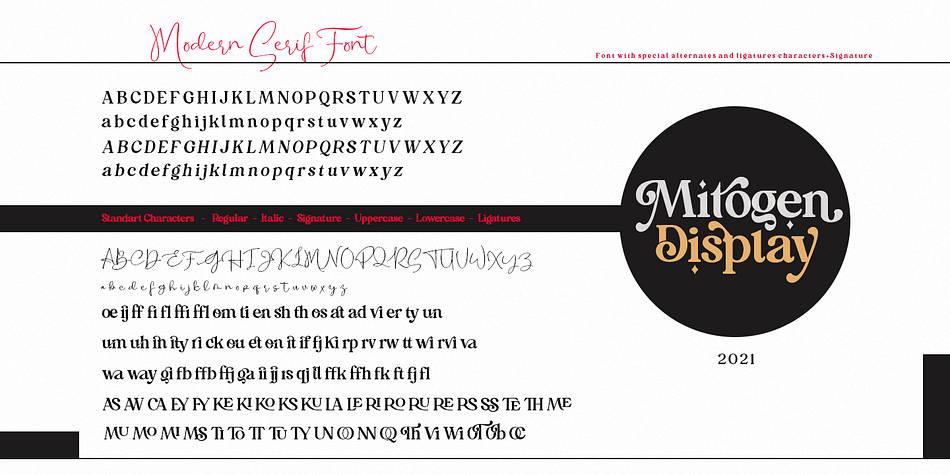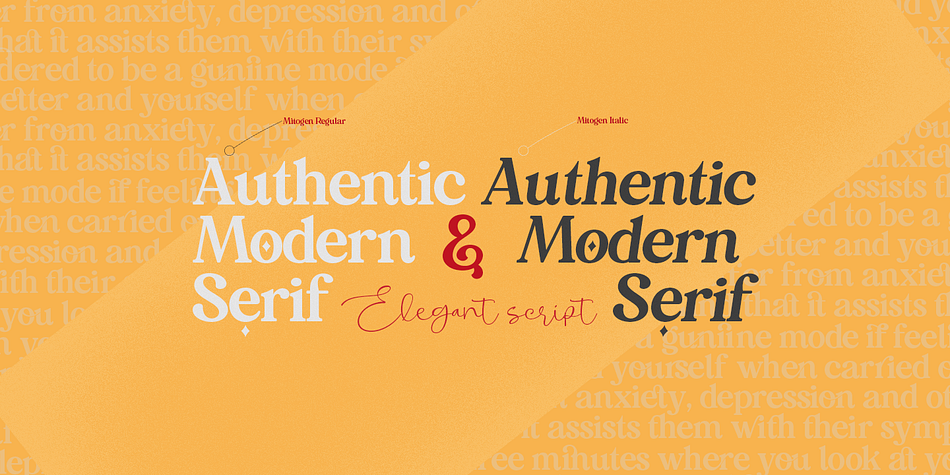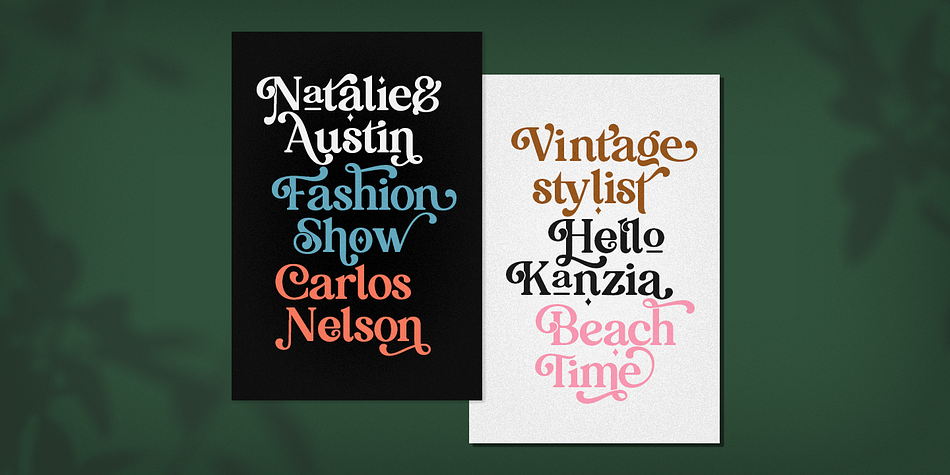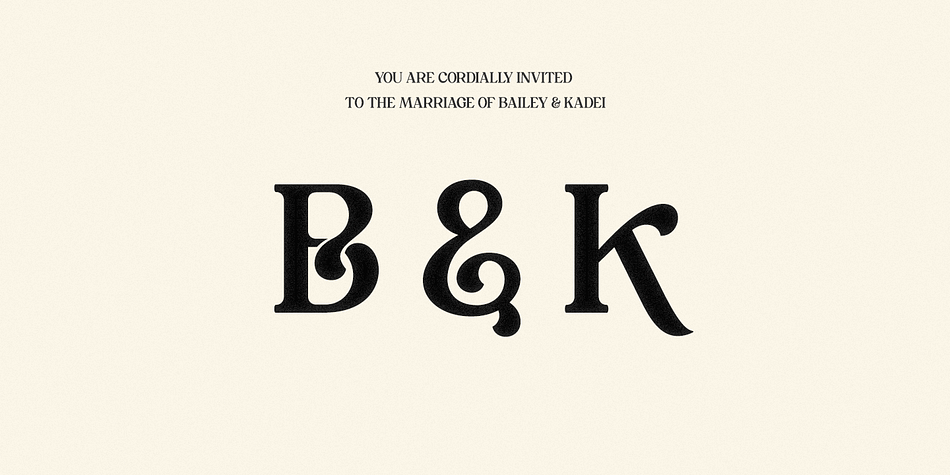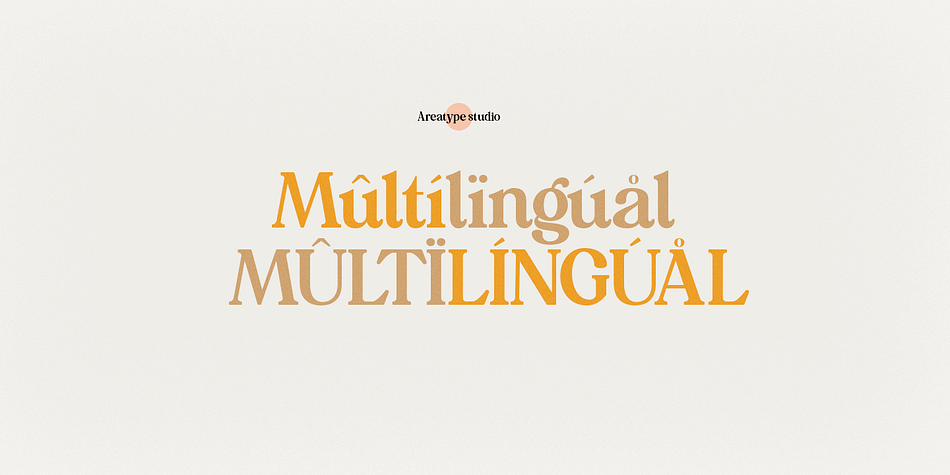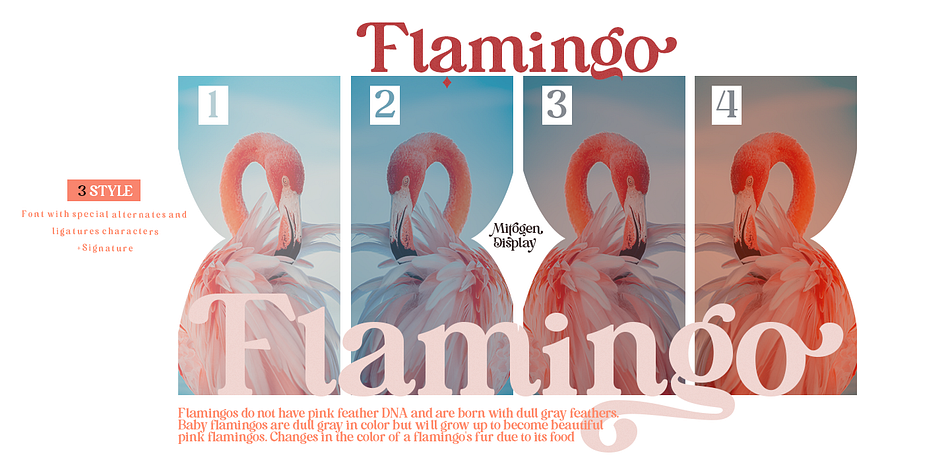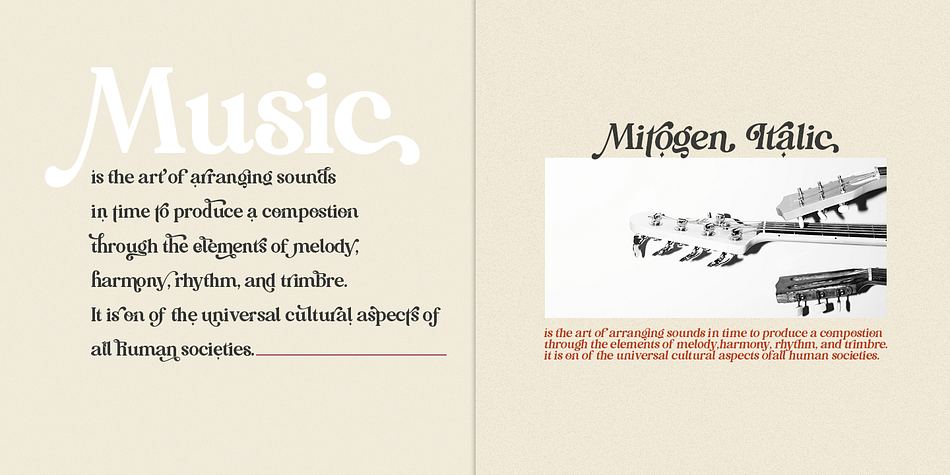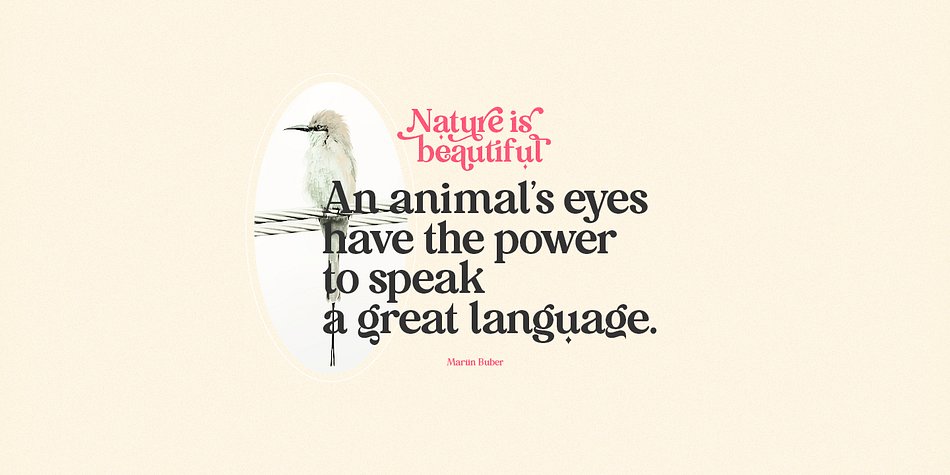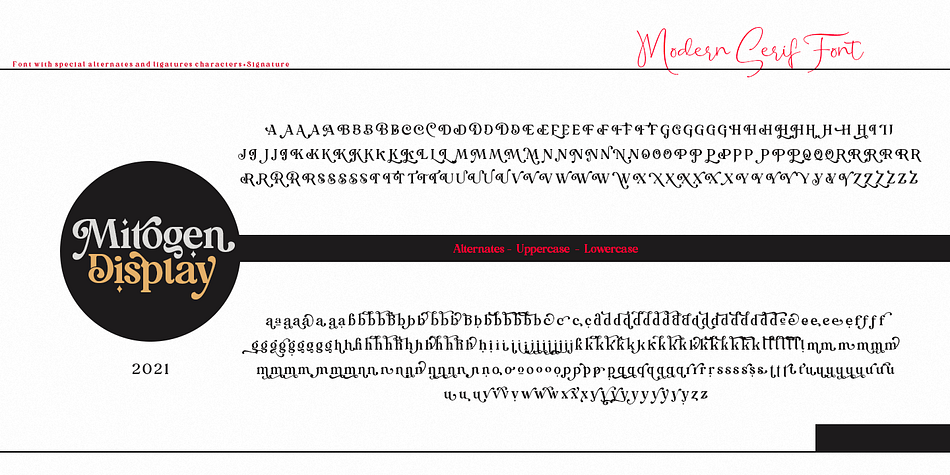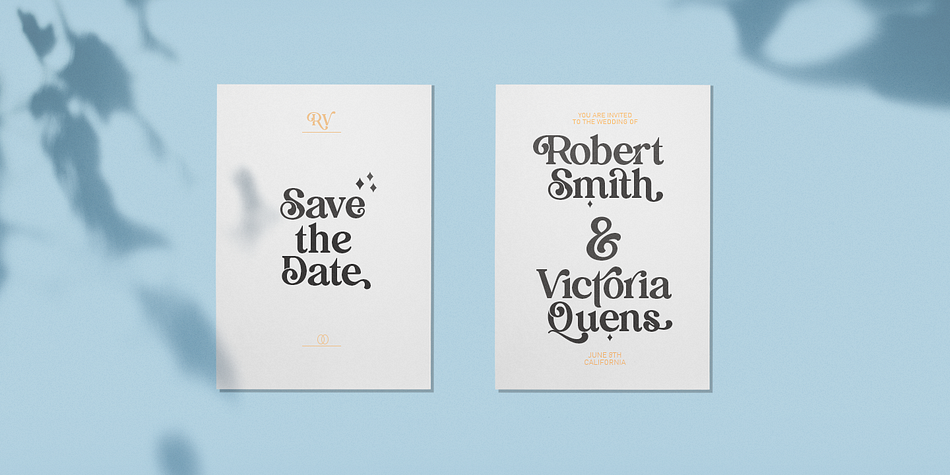
Mitogen Display is a display, modern calligraphy and script font family. This typeface has three styles and was published by Area Type Studio.
Mitogen Display is a very versatile font.perfect for magazine images, to wedding invitations, to branding, poster design, and more.